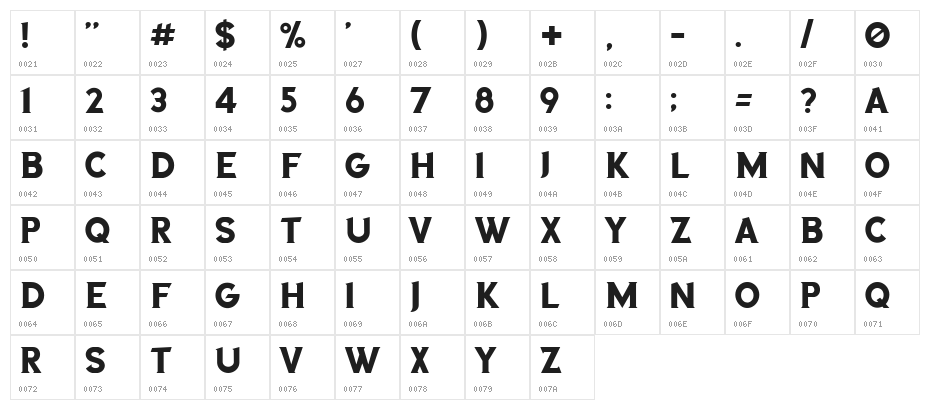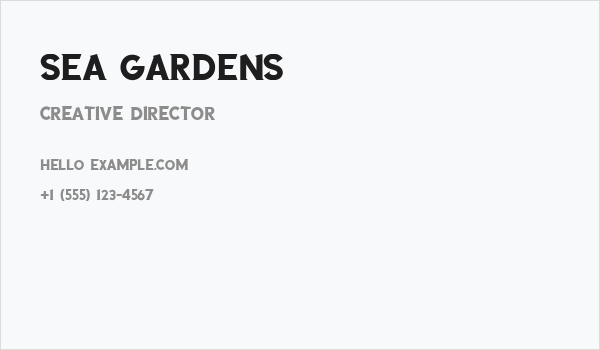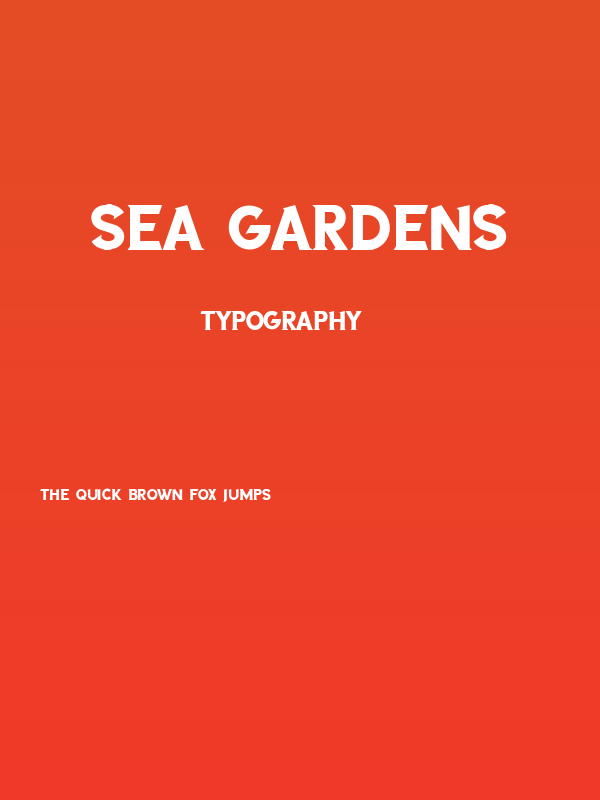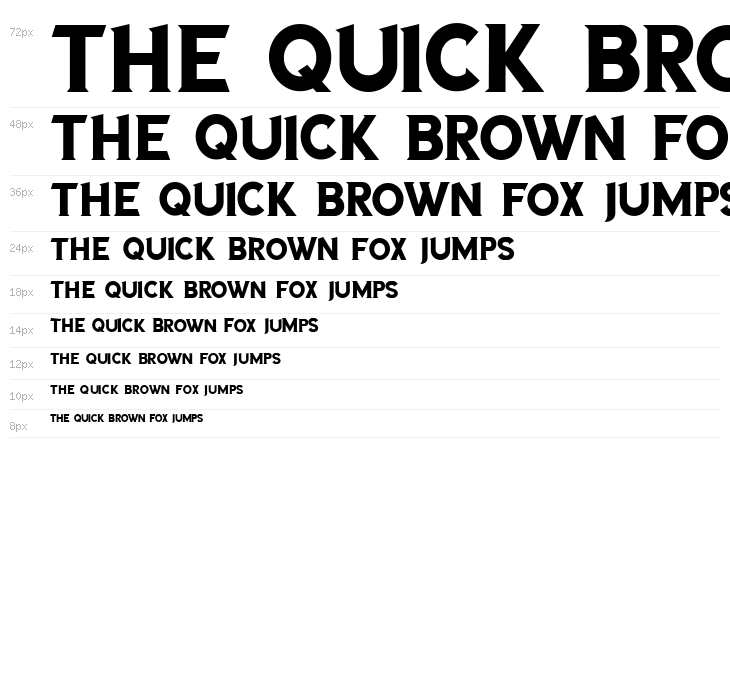
SEA GARDENS Font
SEA GARDENS Description
This font features bold, geometric characters with a strong presence, making it ideal for impactful designs. The uppercase letters are uniform in height and width, providing a balanced and structured appearance. The numerals are equally bold, ensuring they stand out in any context. Special characters are designed with the same boldness, maintaining consistency across the font. The overall style is modern and assertive, suitable for attention-grabbing headlines or branding materials.
| Proposed Projects | This font is perfect for branding, advertising, posters, and any project requiring a strong visual impact. |